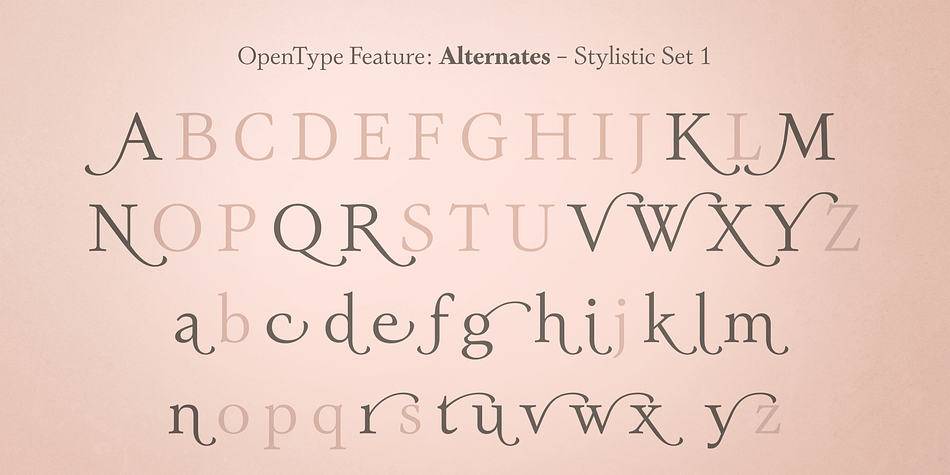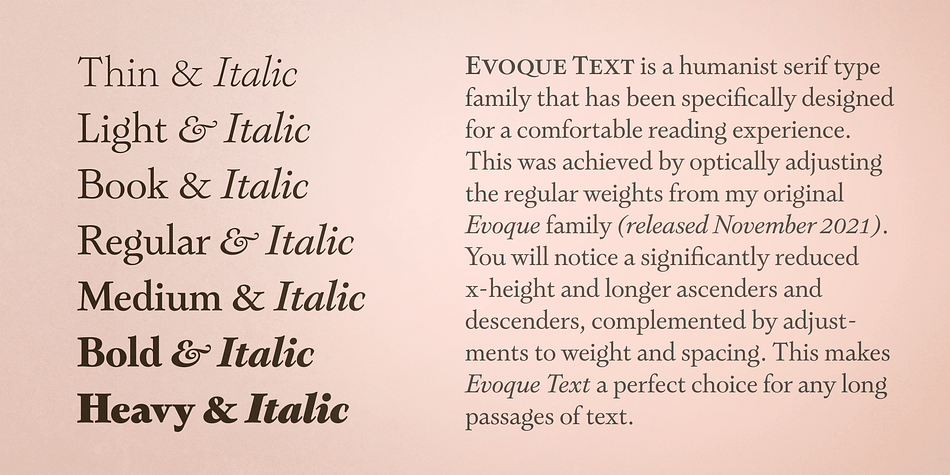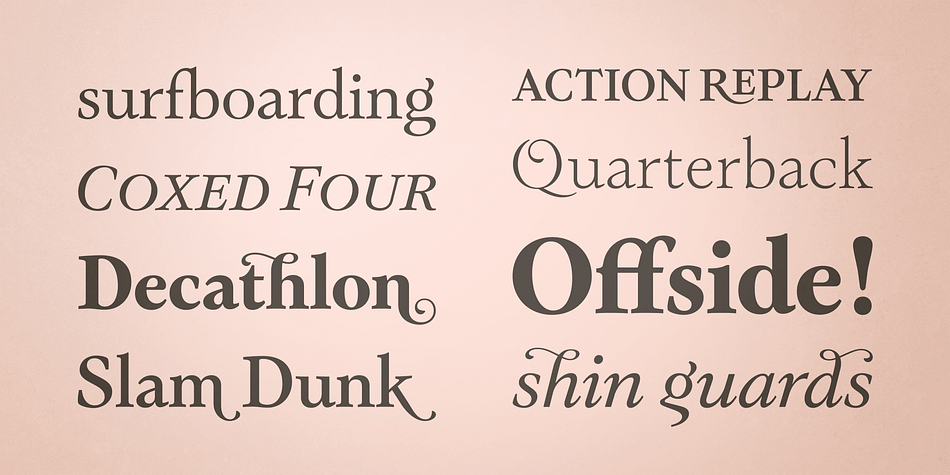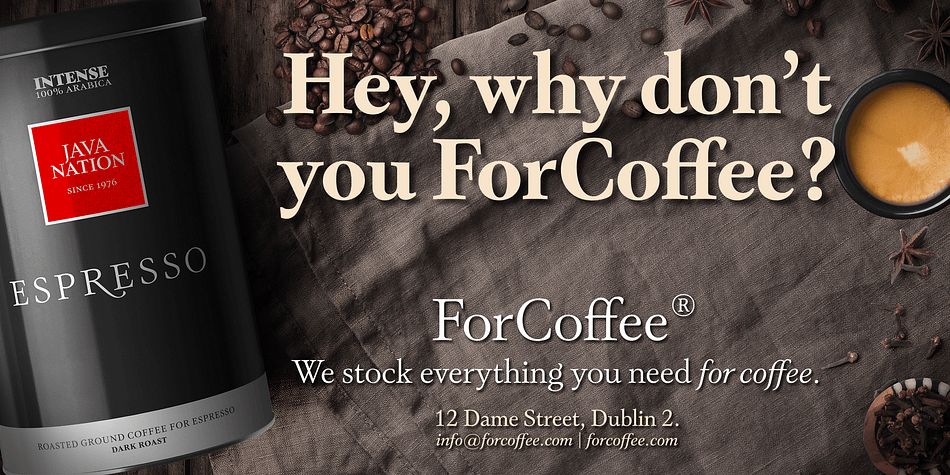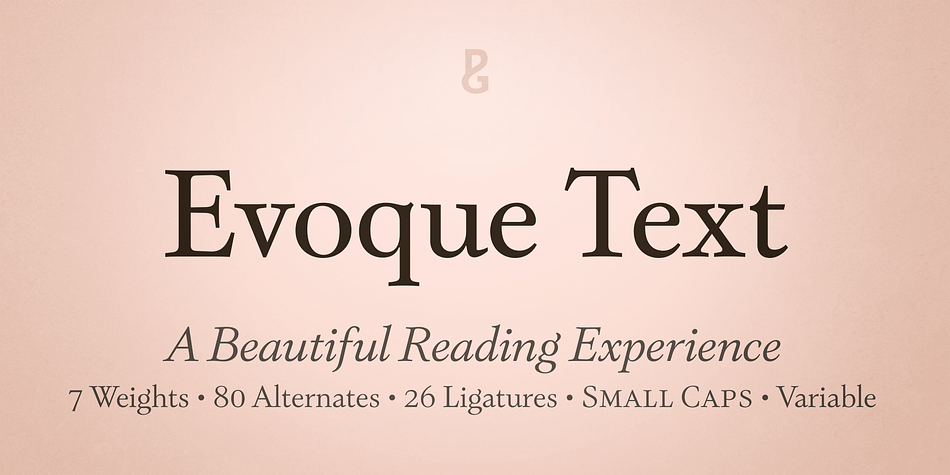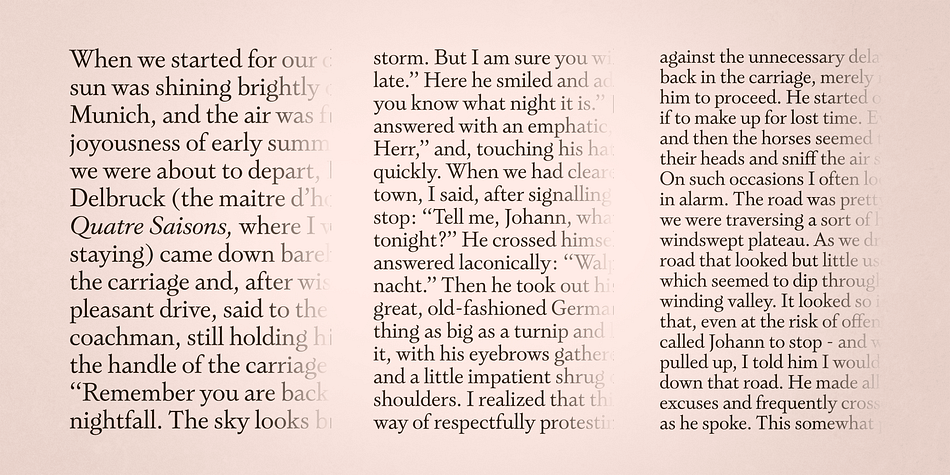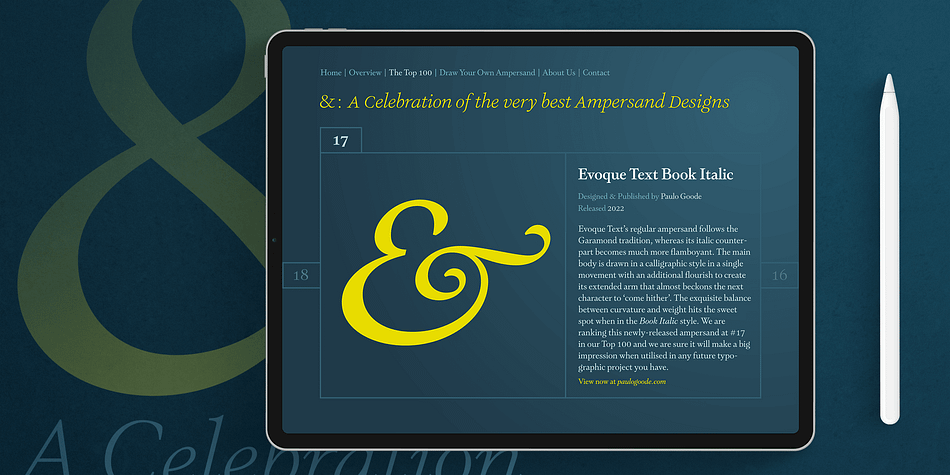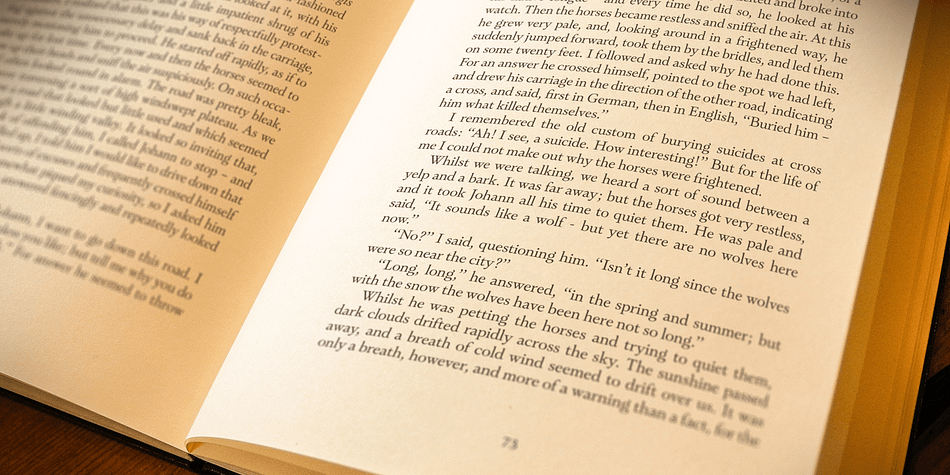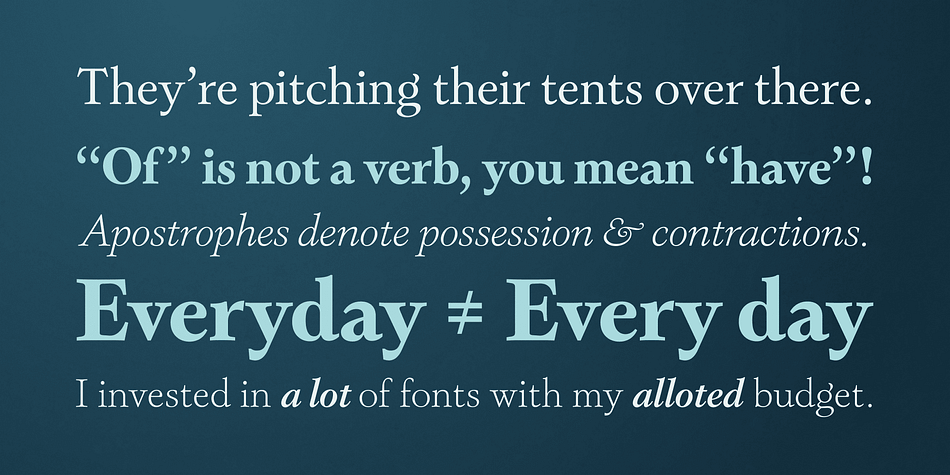
Designed by Paulo Goode, Evoque Text is a serif font family. This typeface has sixteen styles and was published by Paulo Goode.
Evoque Text is a humanist serif type family specifically designed for a comfortable reading experience. This has been achieved by optically adjusting the regular weights from my original Evoque family (released November 2021). You will notice a significantly reduced x-height and longer ascenders and descenders, complemented by adjustments to weight and spacing. This makes Evoque Text a perfect choice for any long passages of text.
All OpenType features have been retained from Evoque. A plethora of swash alternates and discretionary ligatures enhance Evoque Text, giving you the opportunity to embellish your typography. Simply activate Stylistic Sets to start adding these flourishes to your text.
Other useful features include Small Caps at the click of a button, and Old Style Figures are an option to the default proportional figure style.
There are 14 fonts altogether over 7 weights in roman and italic, you can also avail of two variable fonts which allow you to fine tune the weight to your exact liking. Evoque Text has an extensive character set (900+ glyphs) that covers every Latin European language.